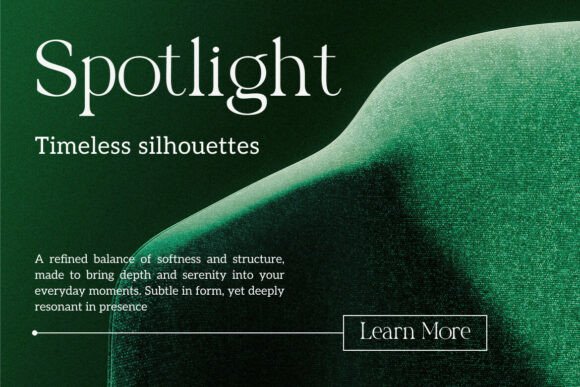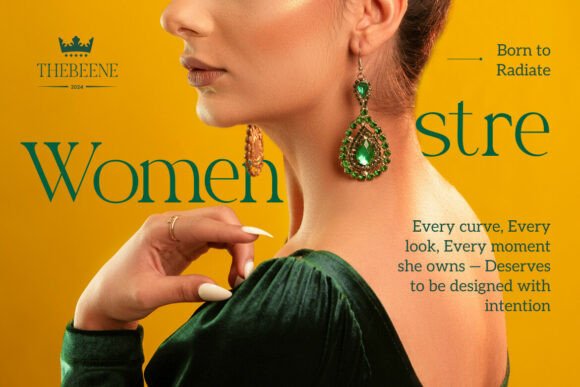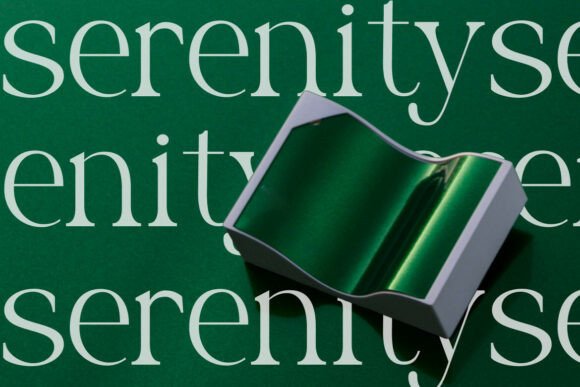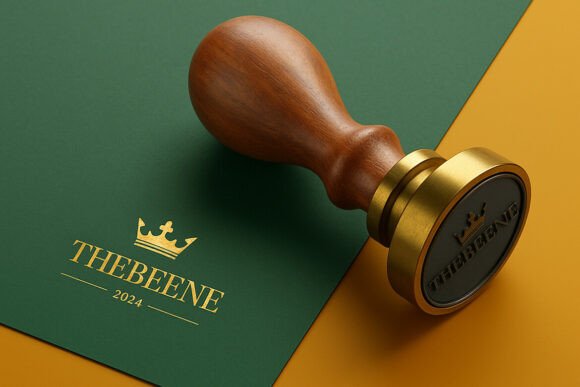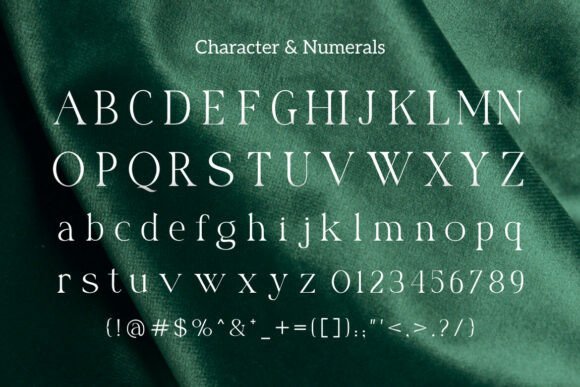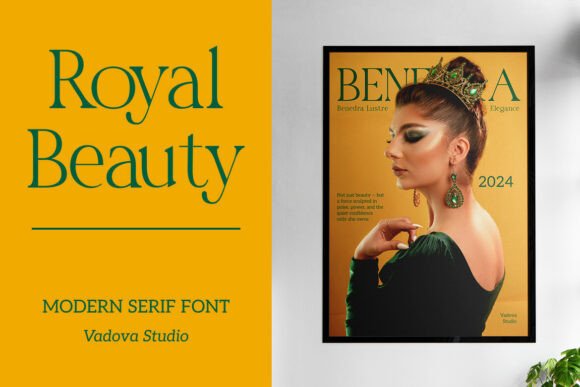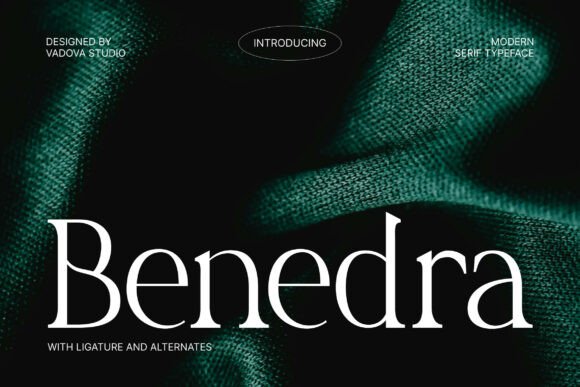
Benedra Font: Elevate Your Design with Classic Elegance and Modern Sophistication
In the world of typography, fonts play a crucial role in conveying the tone and personality of a brand or design. For those seeking a typeface that exudes luxury, sophistication, and refinement, Benedra Font is an exceptional choice. This modern serif font masterfully blends classic elegance with a contemporary twist, making it perfect for designers and crafters aiming to create a lasting impression.
The Essence of Benedra Font
Benedra Font is characterized by its refined and graceful aesthetic, which effortlessly evokes a sense of sophistication and luxury. Its modern serif design ensures that it remains relevant and versatile, suitable for a wide range of applications. From high-end fashion and luxury lifestyle brands to wedding and event stationery, editorial publications, and refined digital presence, Benedra Font is the ideal choice for those who value elegance and poise.
Intended Market Vibe
The intended market vibe of Benedra Font is one of opulence and refinement. It is specifically designed to cater to the needs of:
- High-end fashion brands: Benedra Font’s luxurious and sophisticated aesthetic makes it an excellent fit for high-end fashion brands seeking to convey a sense of exclusivity and refinement.
- Luxury lifestyle brands: For brands that embody luxury and sophistication, Benedra Font provides a perfect typographic solution to communicate their values and personality.
- Wedding and event stationery: The font’s elegant and refined design makes it an excellent choice for wedding and event stationery, adding a touch of sophistication and glamour to any invitation or announcement.
- Editorial publications: Benedra Font’s classic elegance and modern twist make it an excellent fit for editorial publications seeking to convey a sense of refinement and sophistication.
- Refined digital presence: For businesses and individuals seeking to establish a refined and luxurious online presence, Benedra Font is an excellent choice for their website, blog, or social media platforms.
Benedra Font boasts a range of design characteristics that make it an exceptional choice for designers and crafters. Some of its key features include:
- Modern serif design: Benedra Font’s modern serif design ensures that it remains relevant and versatile, suitable for a wide range of applications.
- Refined and graceful aesthetic: The font’s refined and graceful aesthetic effortlessly evokes a sense of sophistication and luxury.
- Classic elegance with a contemporary twist: Benedra Font masterfully blends classic elegance with a contemporary twist, making it perfect for those seeking a typeface that is both timeless and modern.
Why Choose Benedra Font?
There are several reasons why designers and crafters should consider Benedra Font for their next project:
- Unique and distinctive: Benedra Font offers a unique and distinctive typographic solution that sets it apart from other fonts.
- Versatile: The font’s versatility ensures that it can be used in a wide range of applications, from print to digital.
- Easy to read: Benedra Font is designed to be easy to read, making it perfect for body text, headlines, and titles.
- Customizable: The font can be customized to suit specific design needs, allowing designers to tailor it to their project’s requirements.
In conclusion, Benedra Font is an exceptional choice for designers and crafters seeking a typeface that embodies classic elegance with a contemporary twist. Its refined and graceful aesthetic creates a sophisticated and luxurious vibe, perfect for making a lasting impression. With its versatility, readability, and customizability, Benedra Font is an excellent fit for a wide range of applications, from high-end fashion and luxury lifestyle brands to wedding and event stationery, editorial publications, and refined digital presence.
Whether you’re a designer, crafter, or simply someone who appreciates beautiful typography, Benedra Font is definitely worth exploring. Its unique and distinctive design ensures that it will elevate your design and help you create a lasting impression.